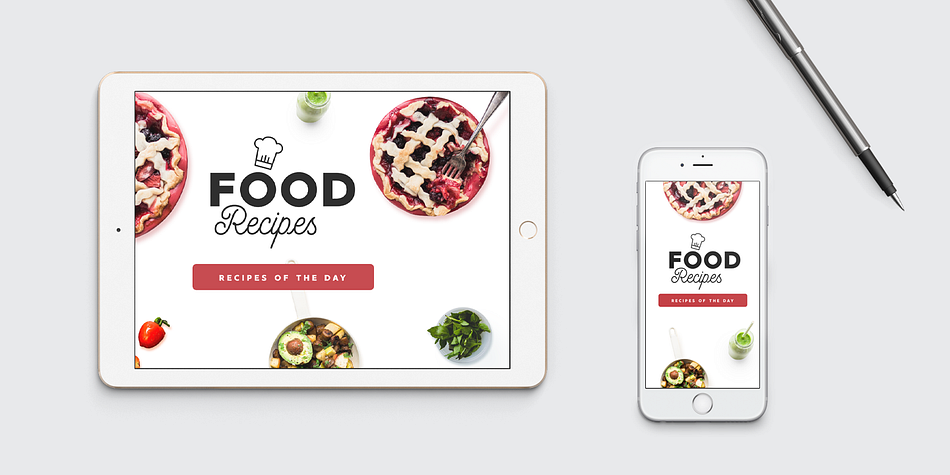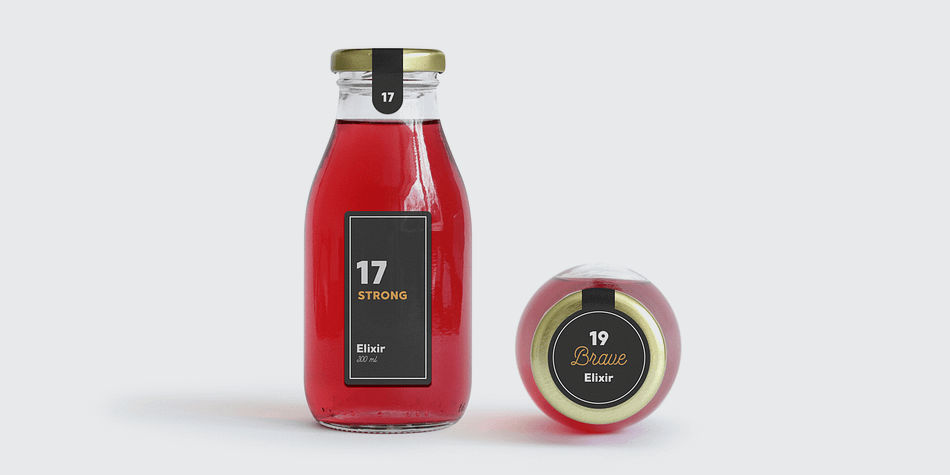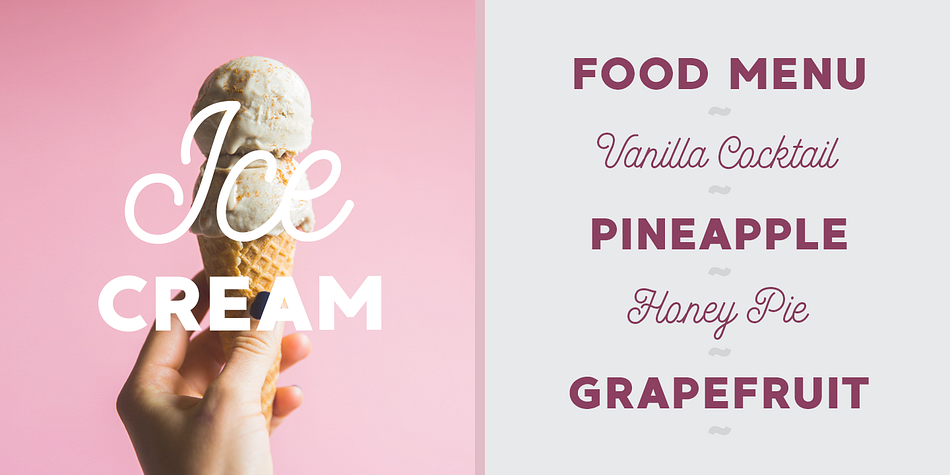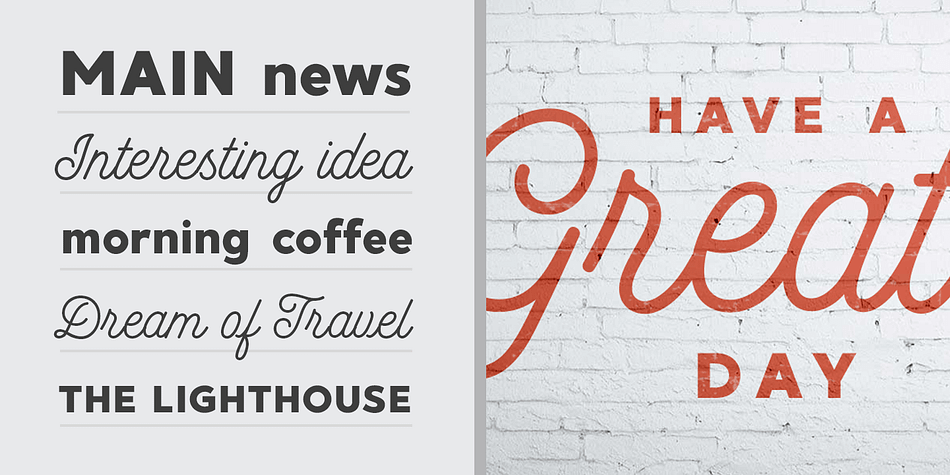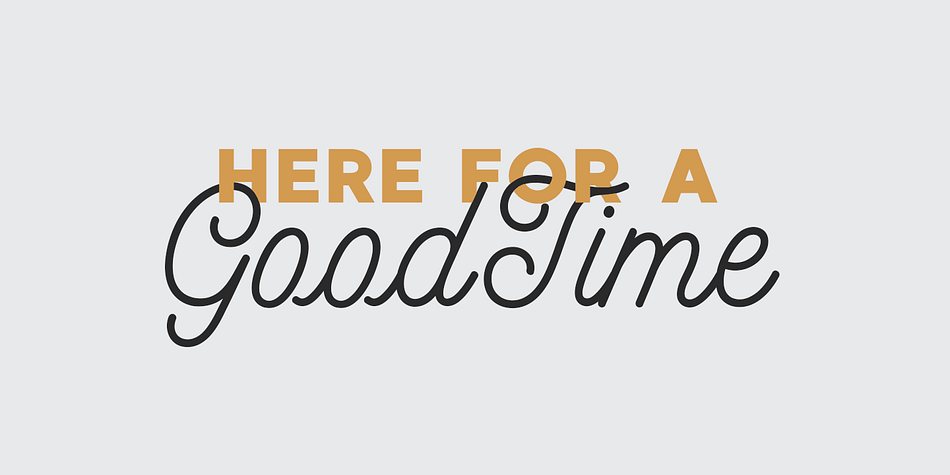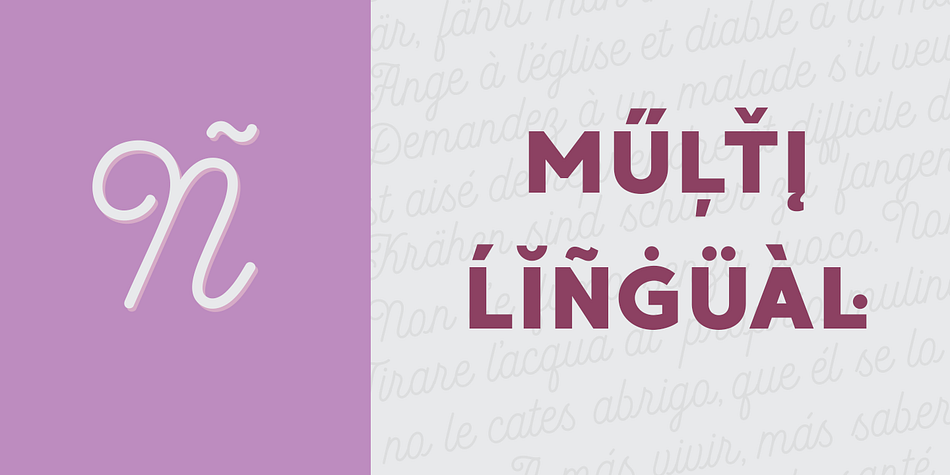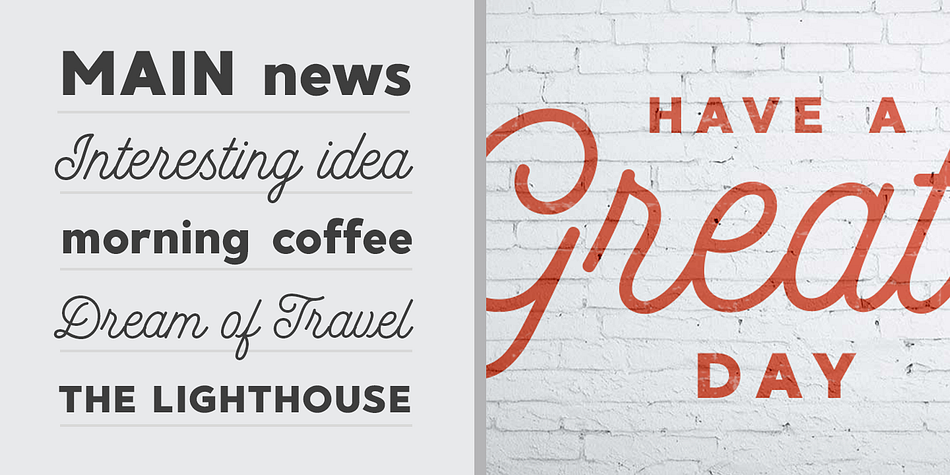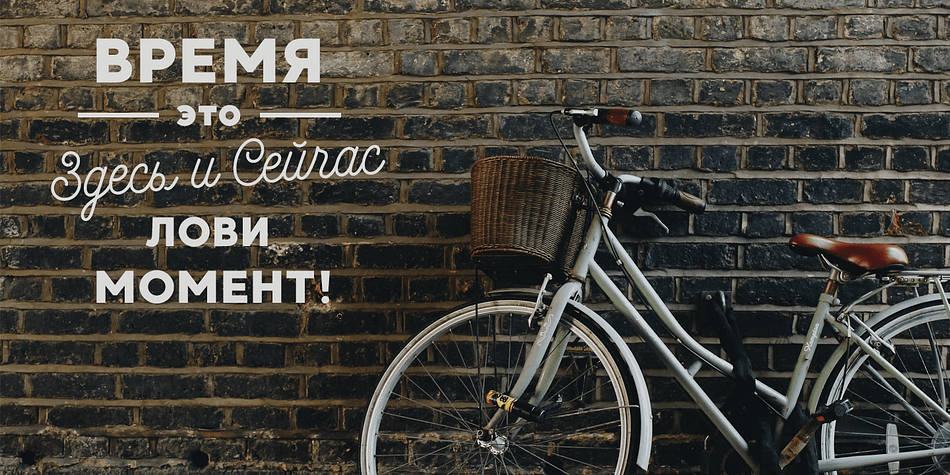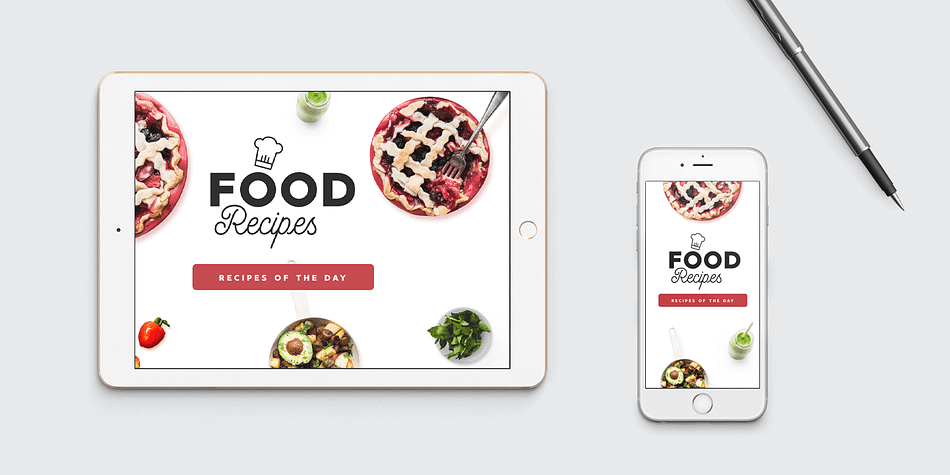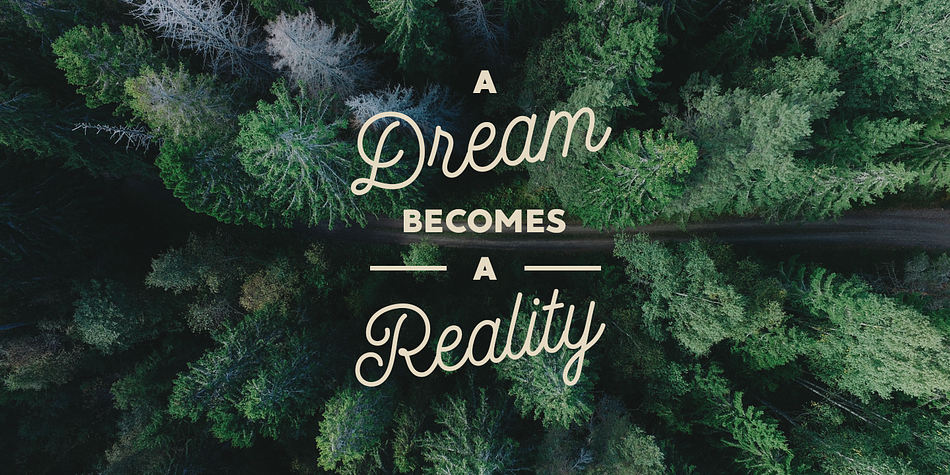
Designed by Maxim Schepin and Denis Schepin, MADE GoodTime is a sans serif and script font family. This typeface has two styles and was published by MadeType.
MADE GoodTime - is a monoline script and grotesk font that both work great together or alone.
This delicious duo contains 2 fonts, specially designed to make sure there’s always one that fits your design needs.
MADE GoodTime gives a fresh look for any project from print to digital.
MADE GoodTime is perfect for headlines and short texts. Use it for magazines, packaging, advertising, branding, posters, editorials, TV, movies, and websites.